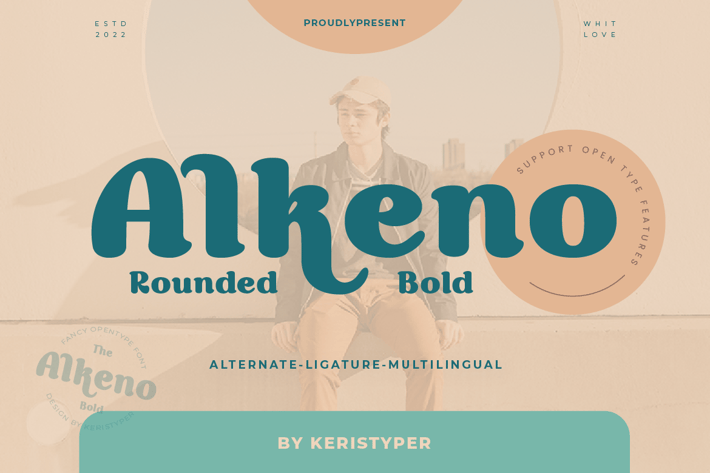
Alkeno Font
Alkeno is a rounded bold display font with an elegant old-school look. This font is good for logo design, Social media, Movie Titles, Books Titles, short text even long text letters, and good for your secondary text font with the script, sans, or serif.
Standard Uppercase & Lowercase
Multilingual : ä ö ü Ä Ö Ü ß ¿ ¡
Alternate & Ligature